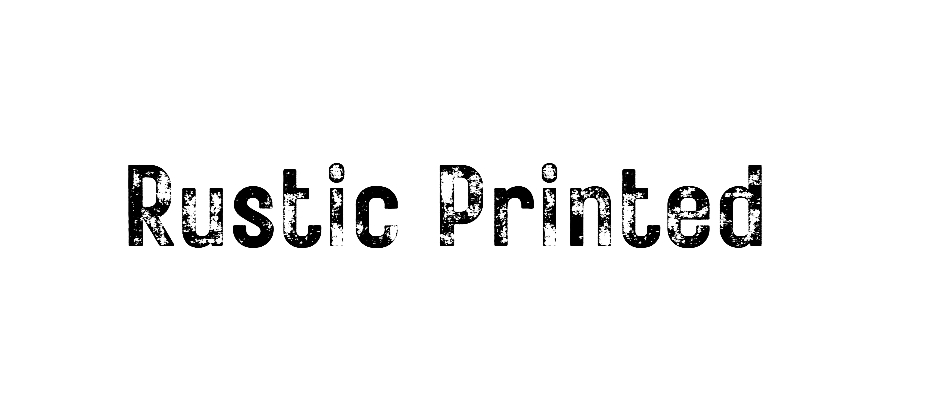
Rustic Printed
- Designer: Edi Gunawan
- Publisher: Edignwn Type
- OpenType features: One stylistic set
- Extra characters: 48 copy-and-paste alternates (Private Use Area)
You get every letter from A to Z in both cases and all the numbers from 0 to 9, which means Rustic Printed can handle full sentences, dates and prices. Common punctuation such as &, !, ? and @ is included as well. It has 1 accented letters, but not the full set for Spanish or French, so test any non-English words first.
Rustic Printed is a natural fit for posters, logos and eye-catching headlines. Use it for one standout word or headline and let simpler fonts handle the rest.